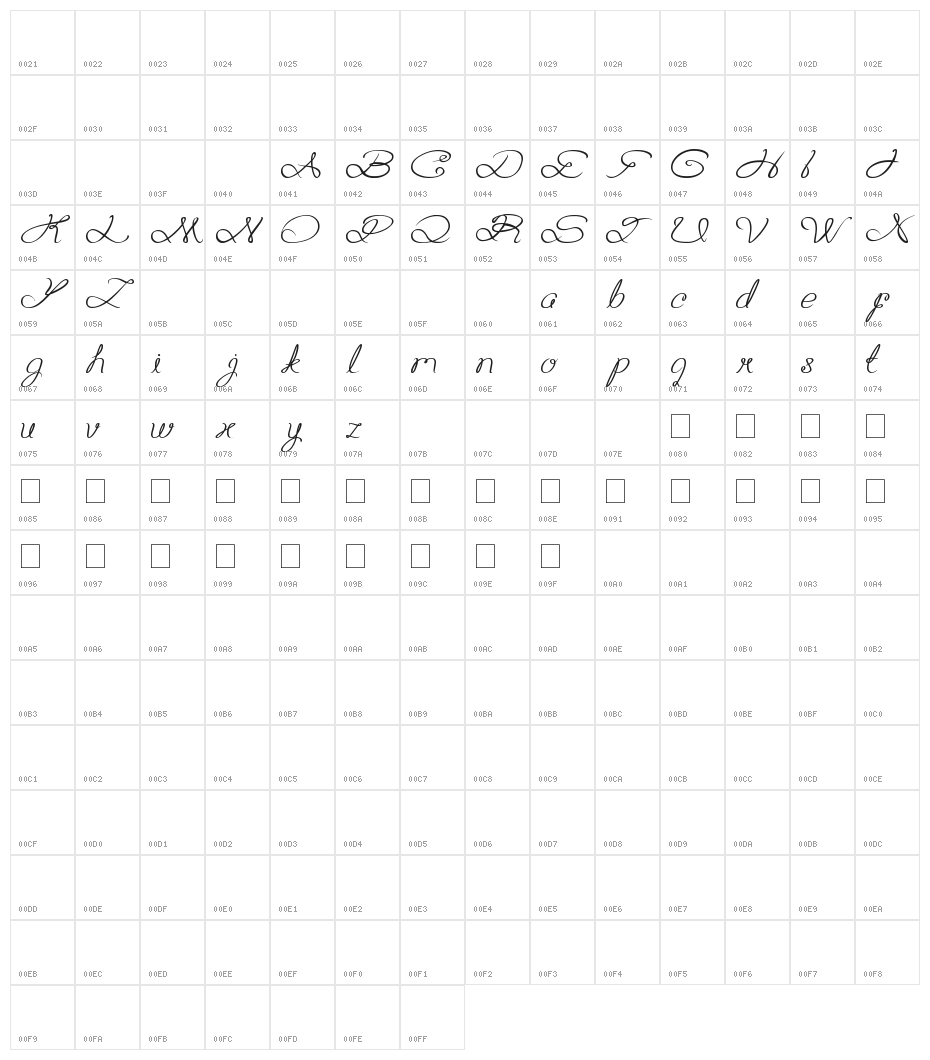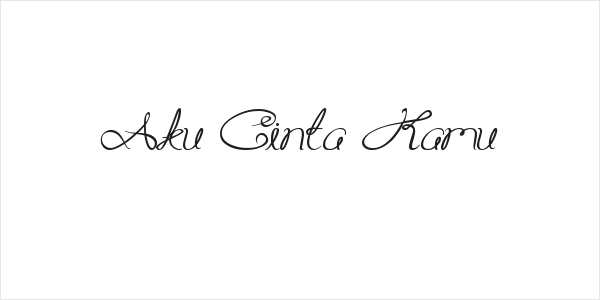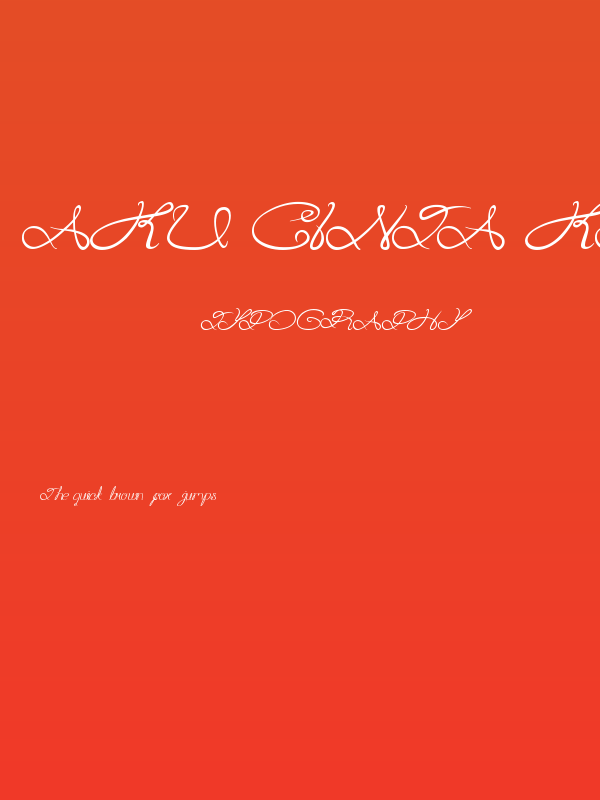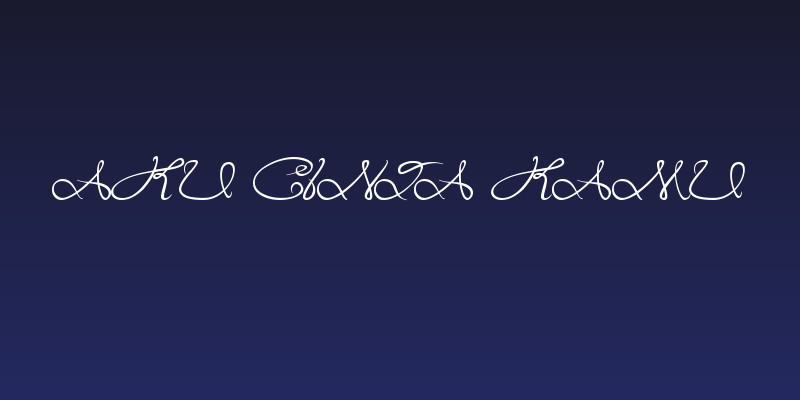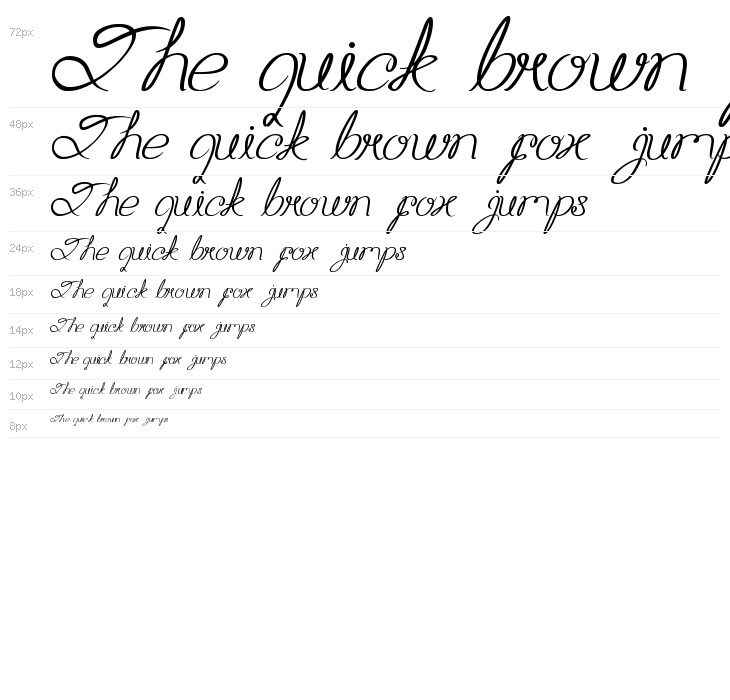
Aku Cinta Kamu Font
Aku Cinta Kamu Description
This font features an elegant and flowing script style, characterized by its intricate loops and swirls. The uppercase letters are particularly ornate, with each character displaying unique flourishes that add a touch of sophistication. The lowercase letters maintain a consistent style, with smooth curves and a slightly slanted orientation, enhancing the overall fluidity of the design. The numbers and special characters are crafted with the same attention to detail, ensuring a cohesive look across all elements. This font is ideal for projects that require a personal and artistic touch, such as invitations, greeting cards, or branding materials.